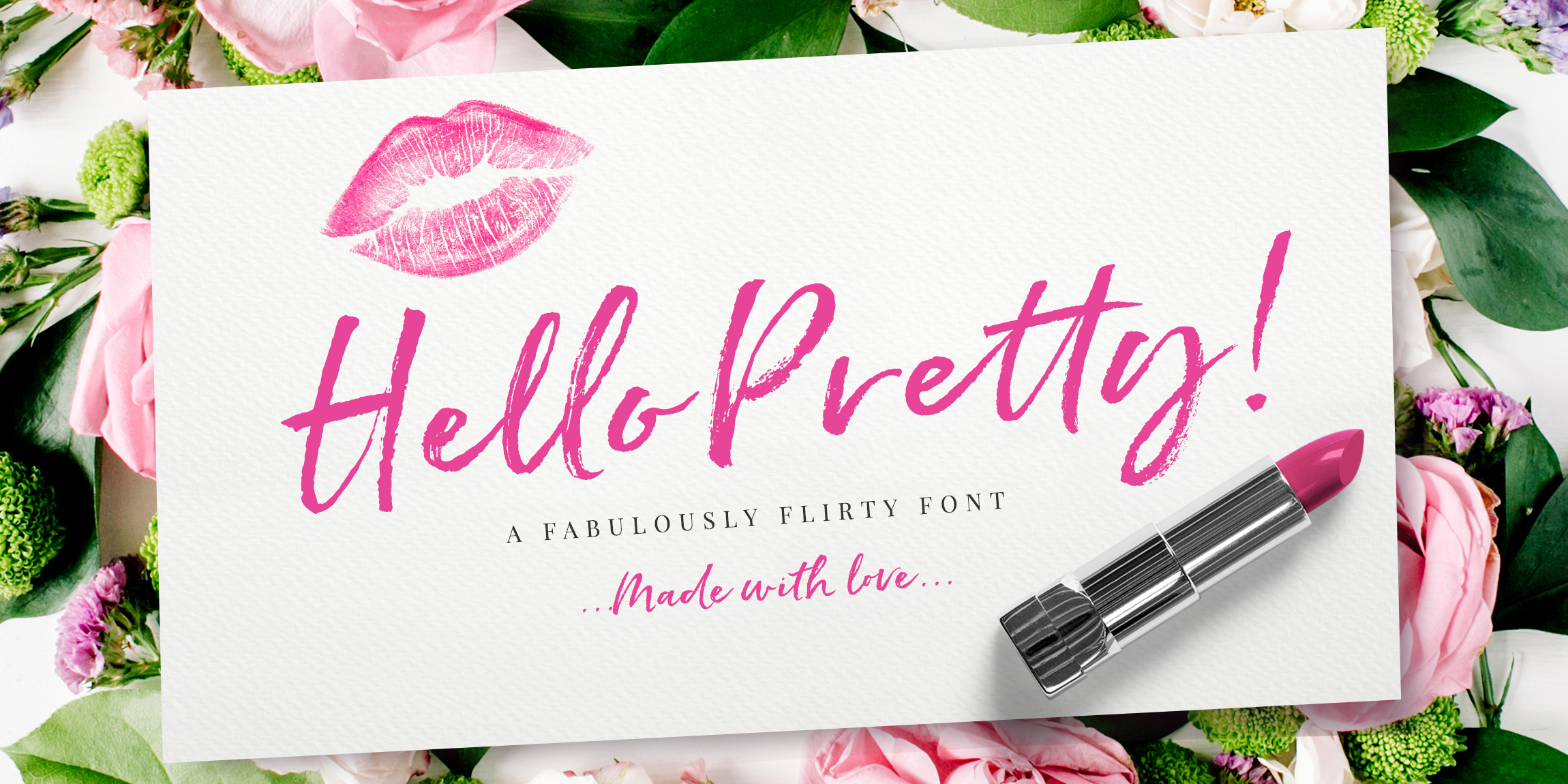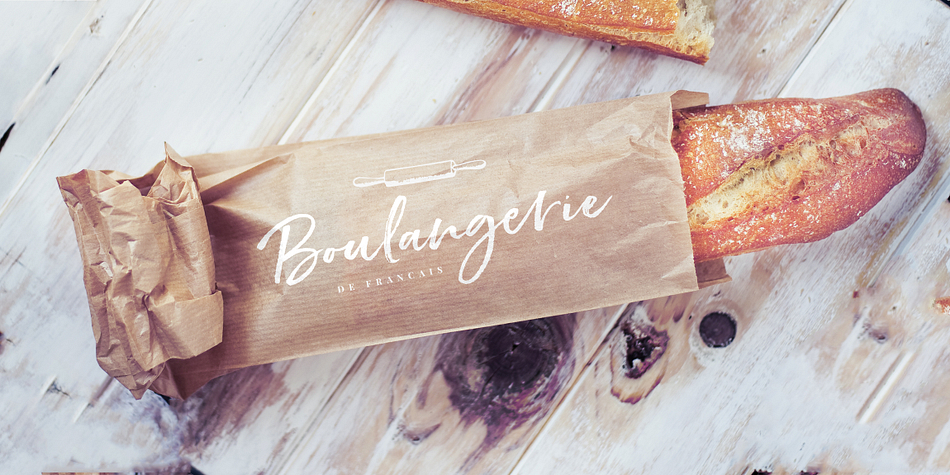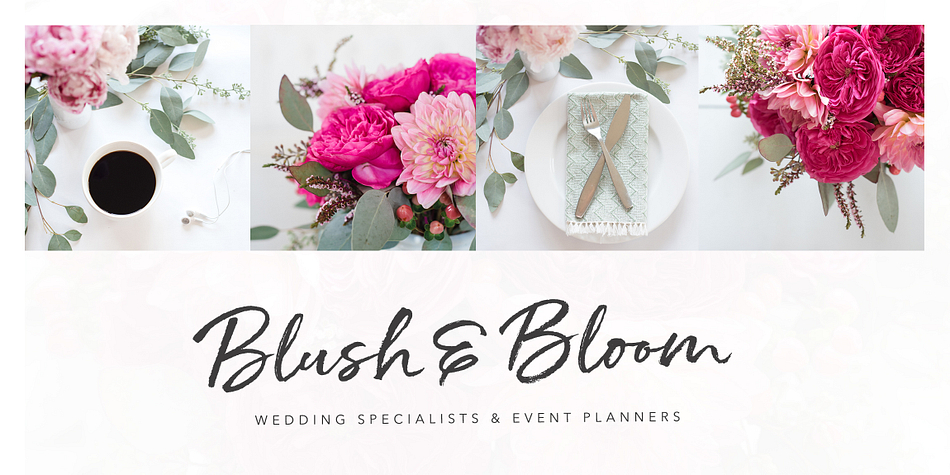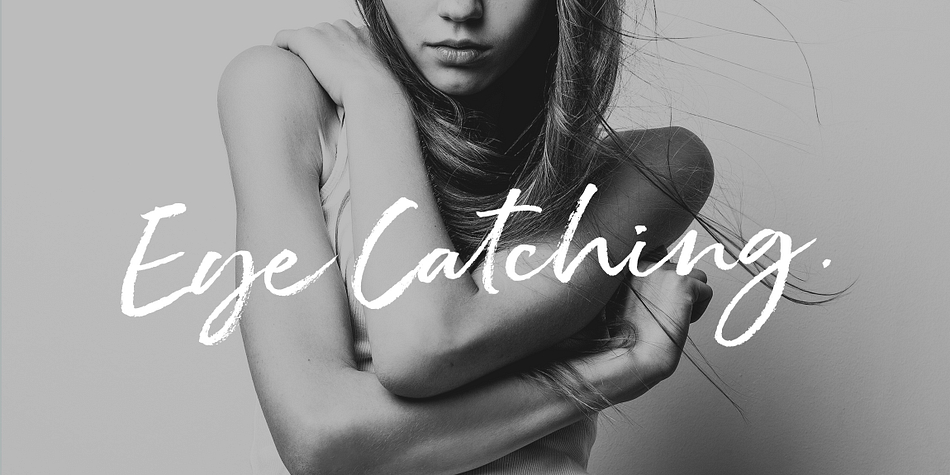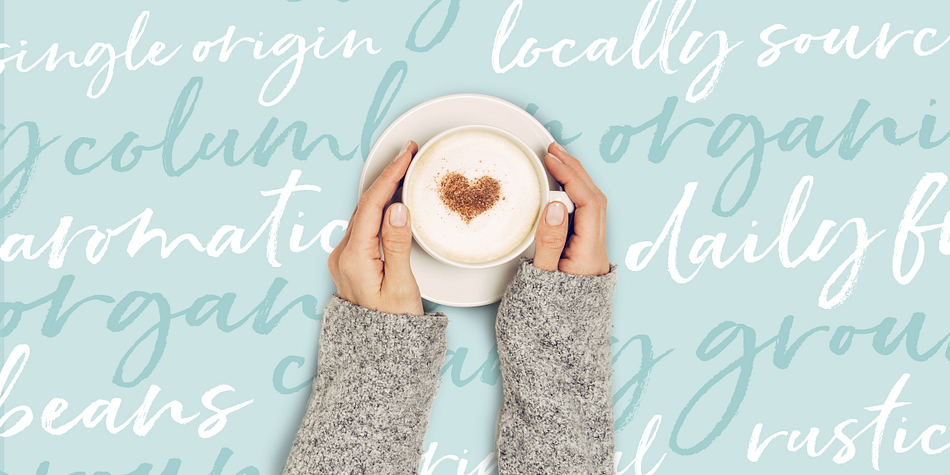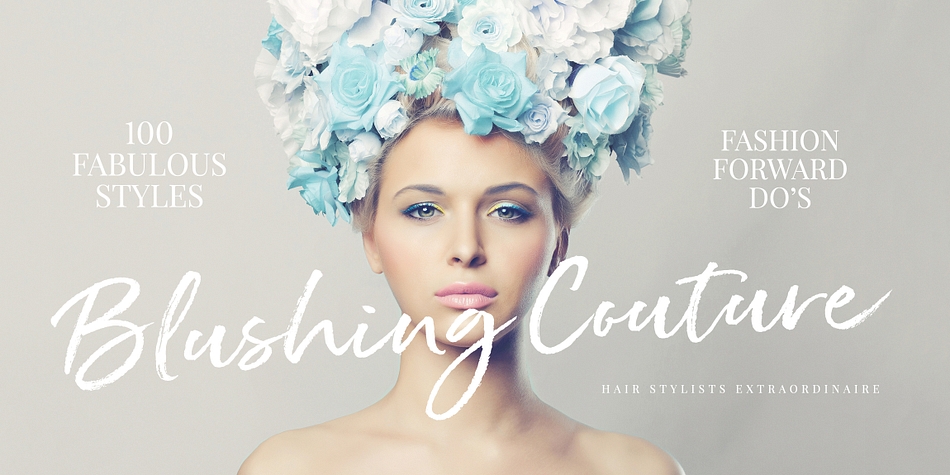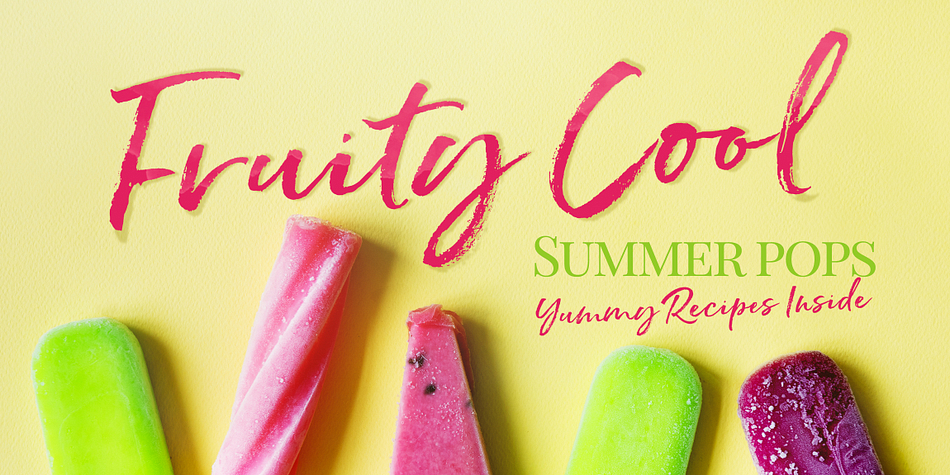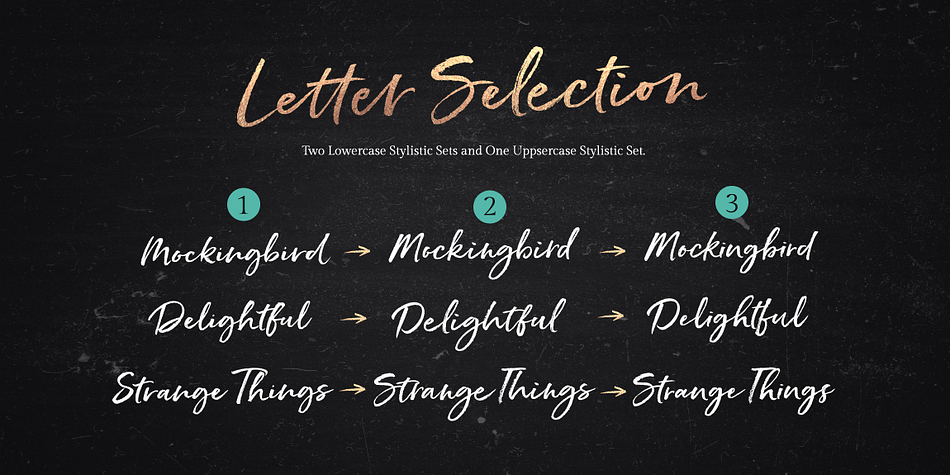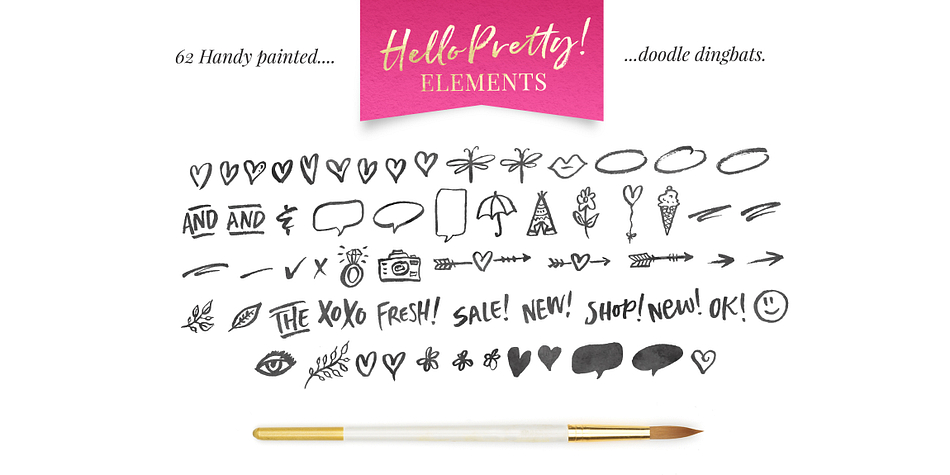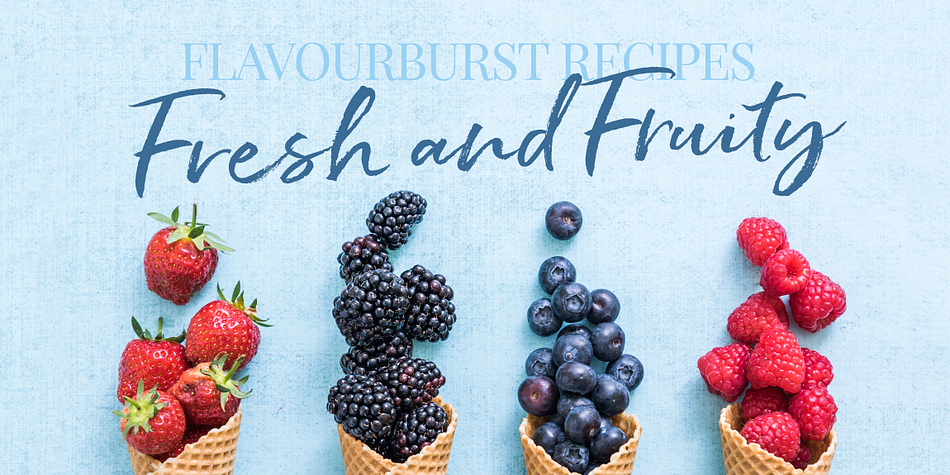
Designed by Nicky Laatz, Hello Pretty is a dingbat and brush script font family. This typeface has two styles and was published by Nicky Laatz.
Say hello to Hello Pretty! A fresh and flirty brush font with oodles of style!
Hello Pretty is a hand brushed typeface, with authentic tell-tale dry brush imperfections, and oodles of alternate letters and ligatures - Perfect for adding a fresh, personal flair to your designs.
Hello Pretty has a large variety of alternate characters ( 2 Sets of lowercase, and 1 set of uppercase), allowing you to make each word look completely unique to the next! Ligatures are also included - to bring true authenticity to your design. It has multilingual support with accented characters for international users.
Hello Pretty also comes with a bonus DINGBAT font with 62 handy doodles elements for your designs :)